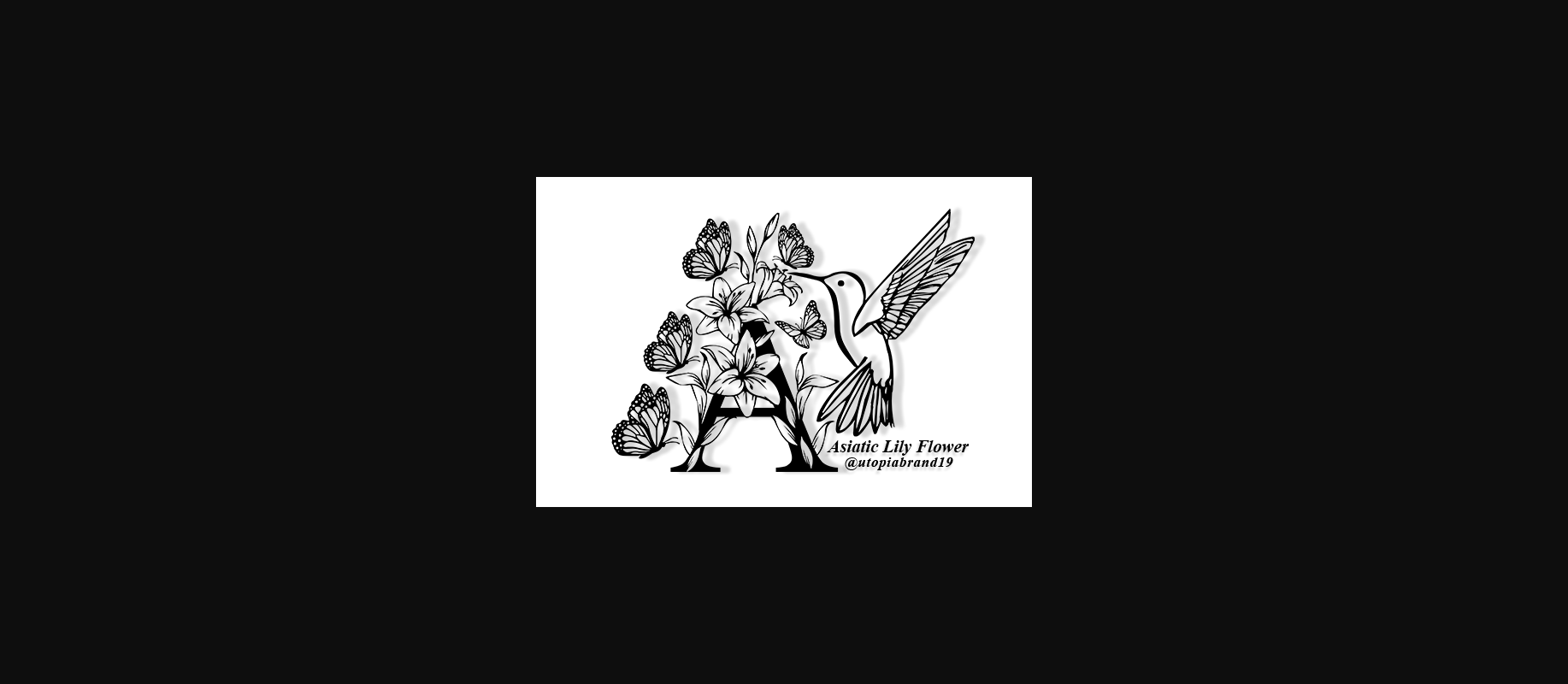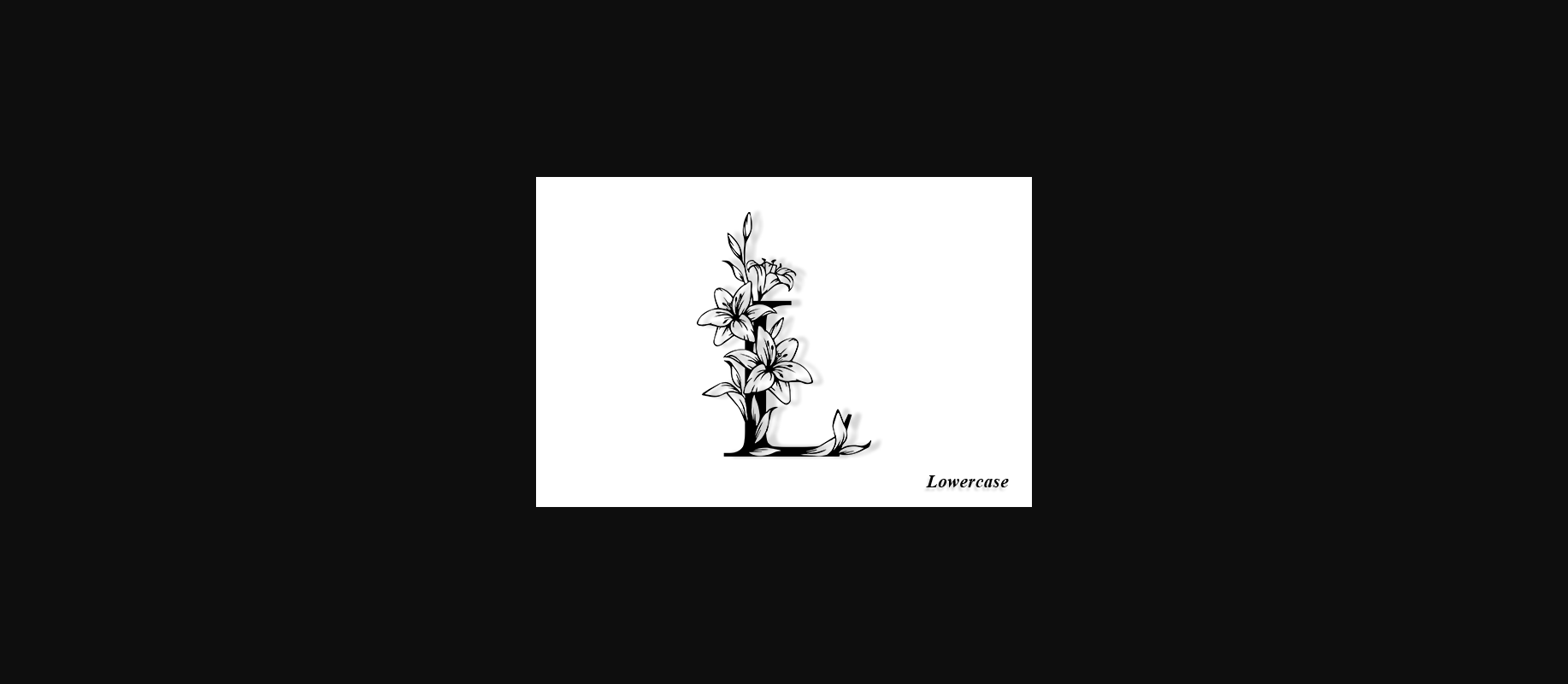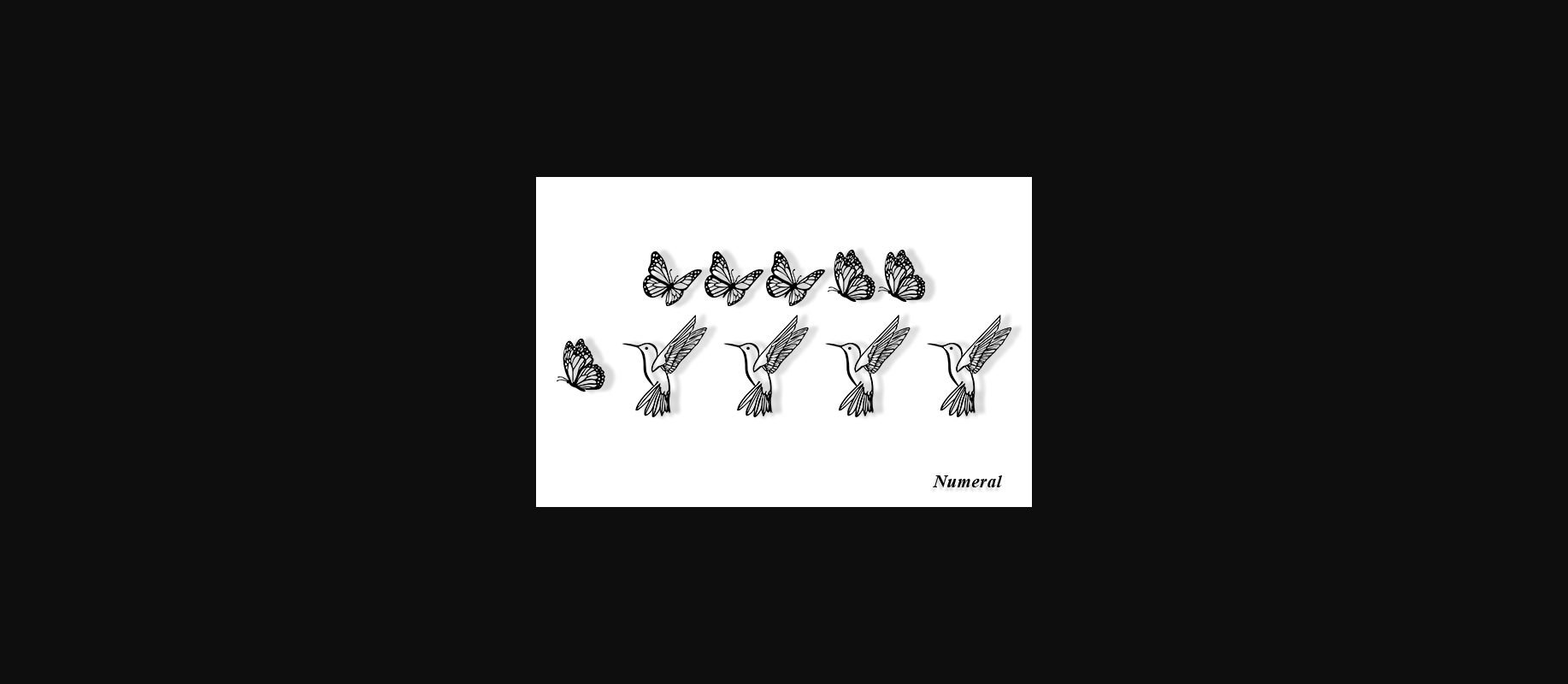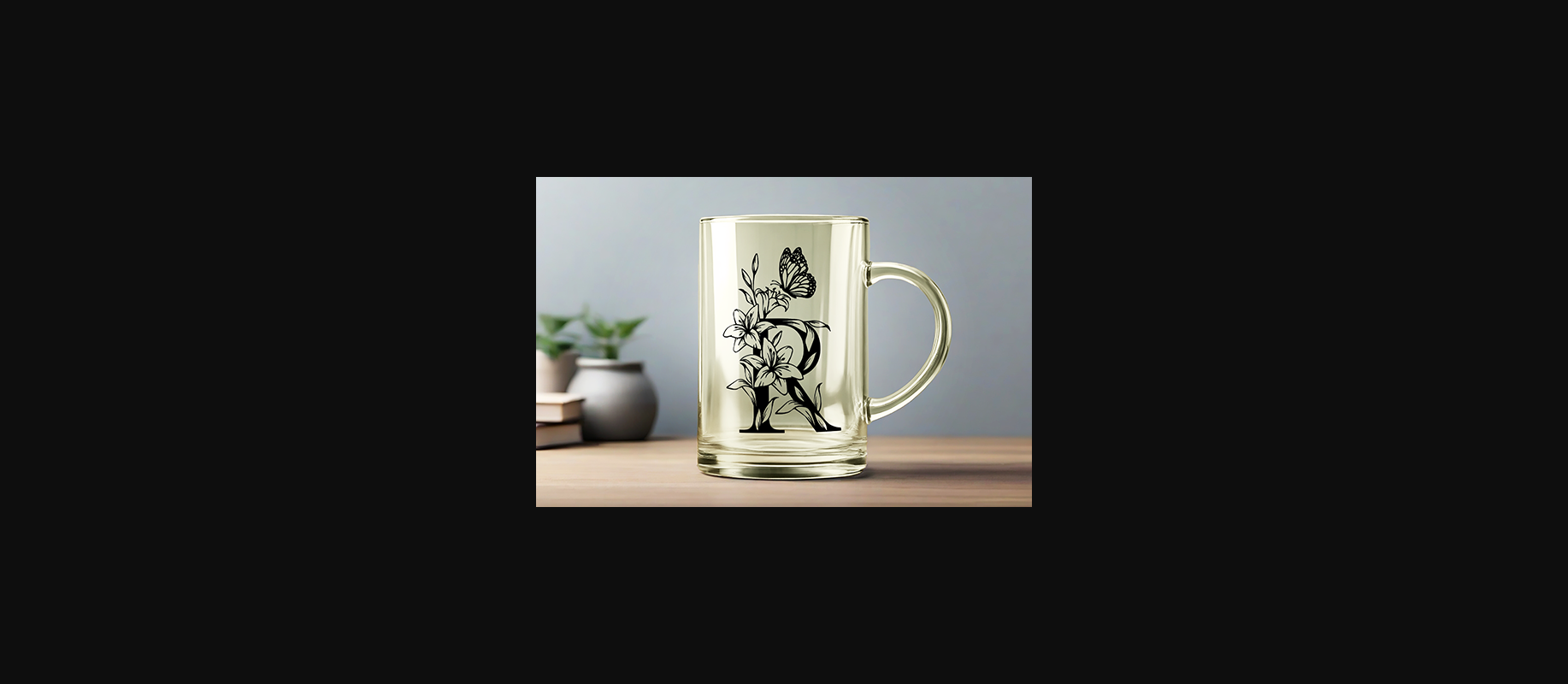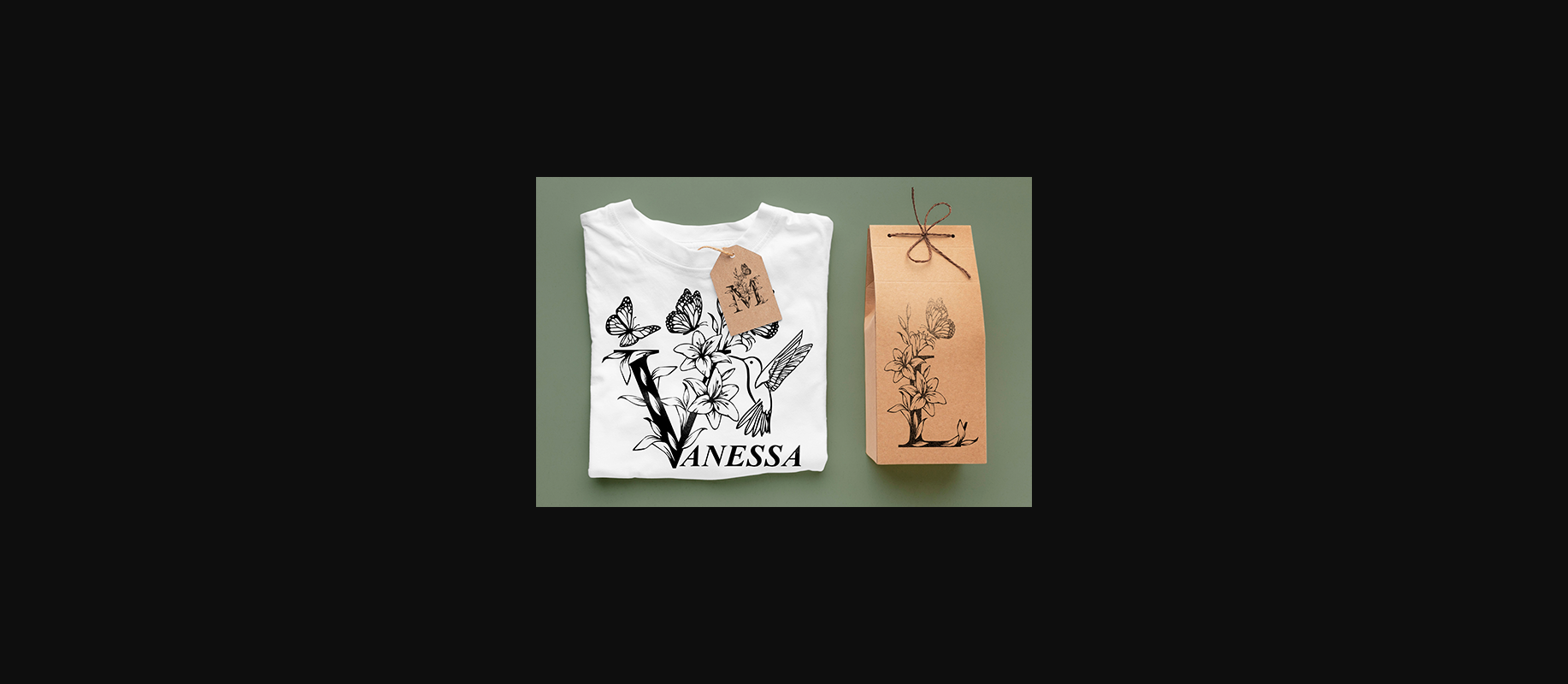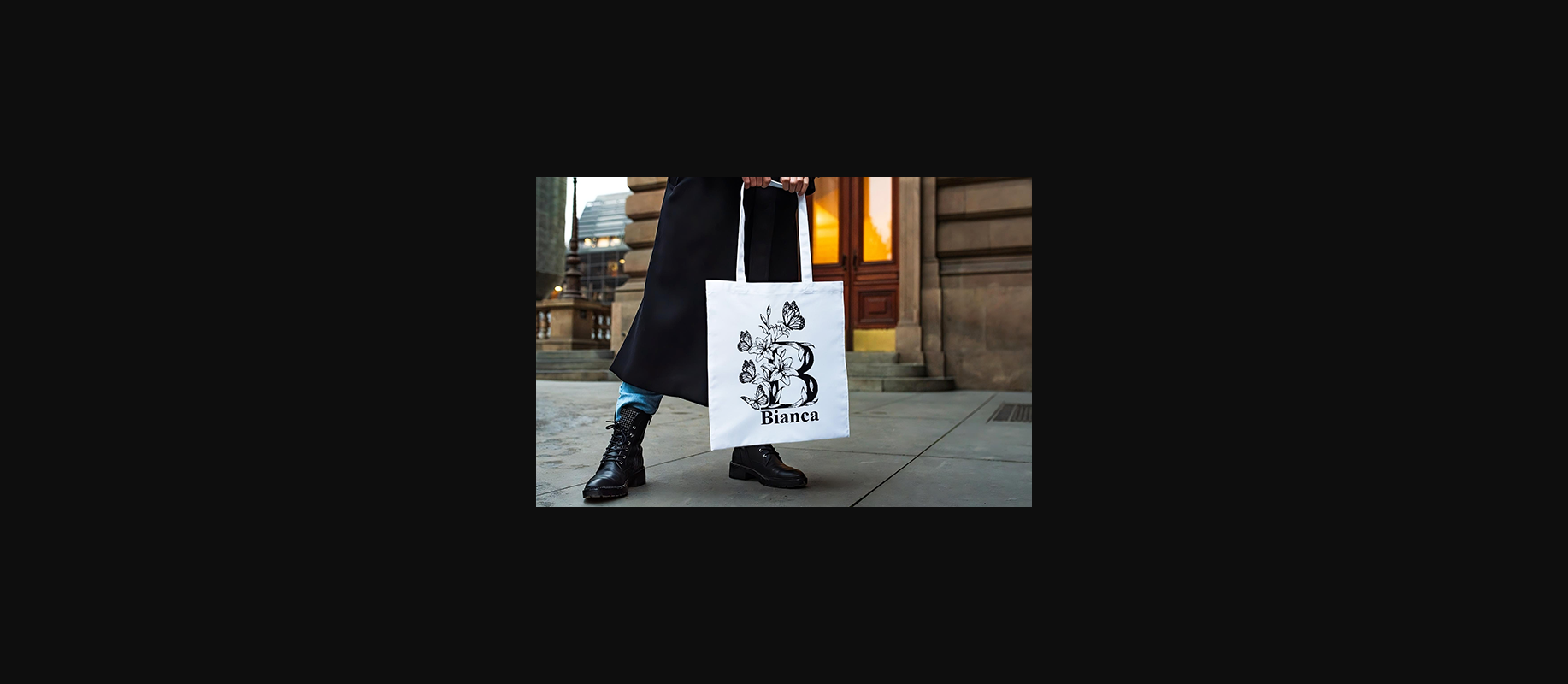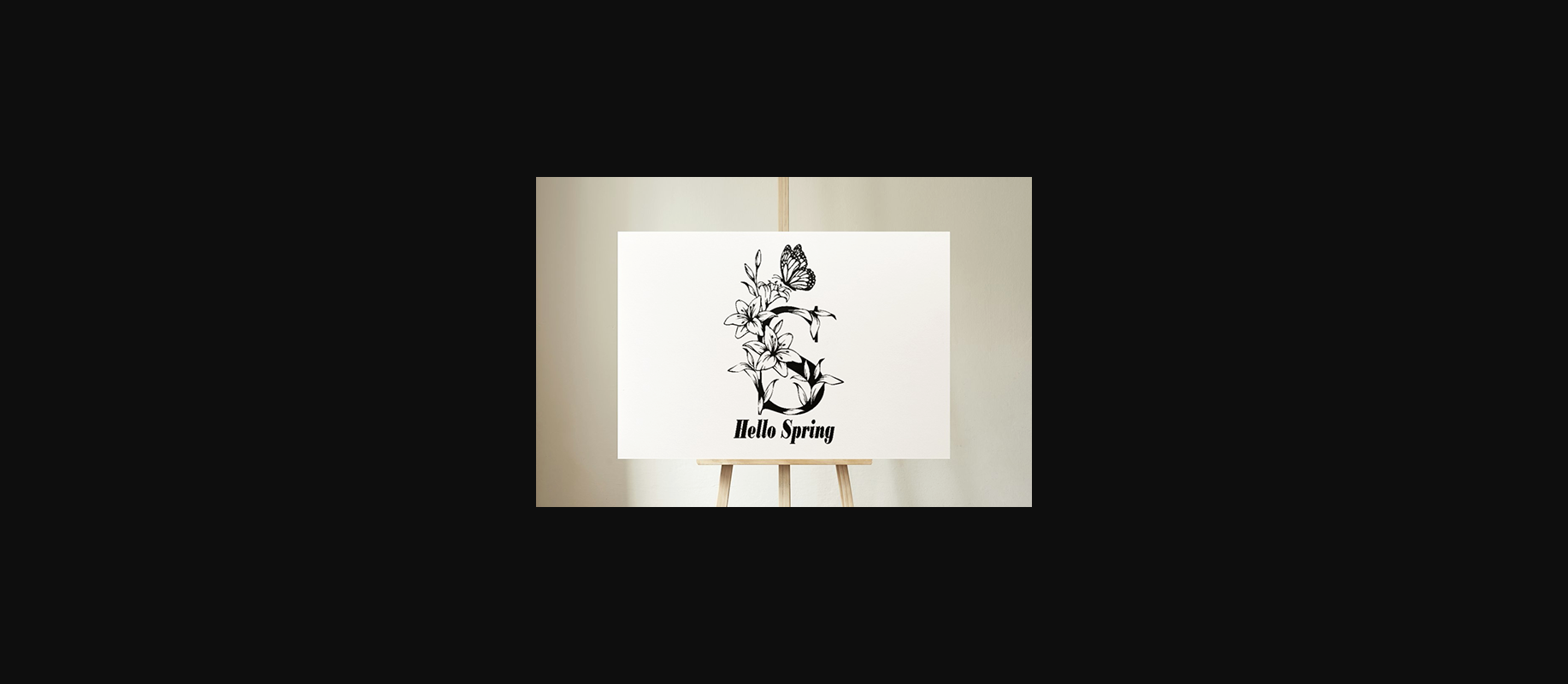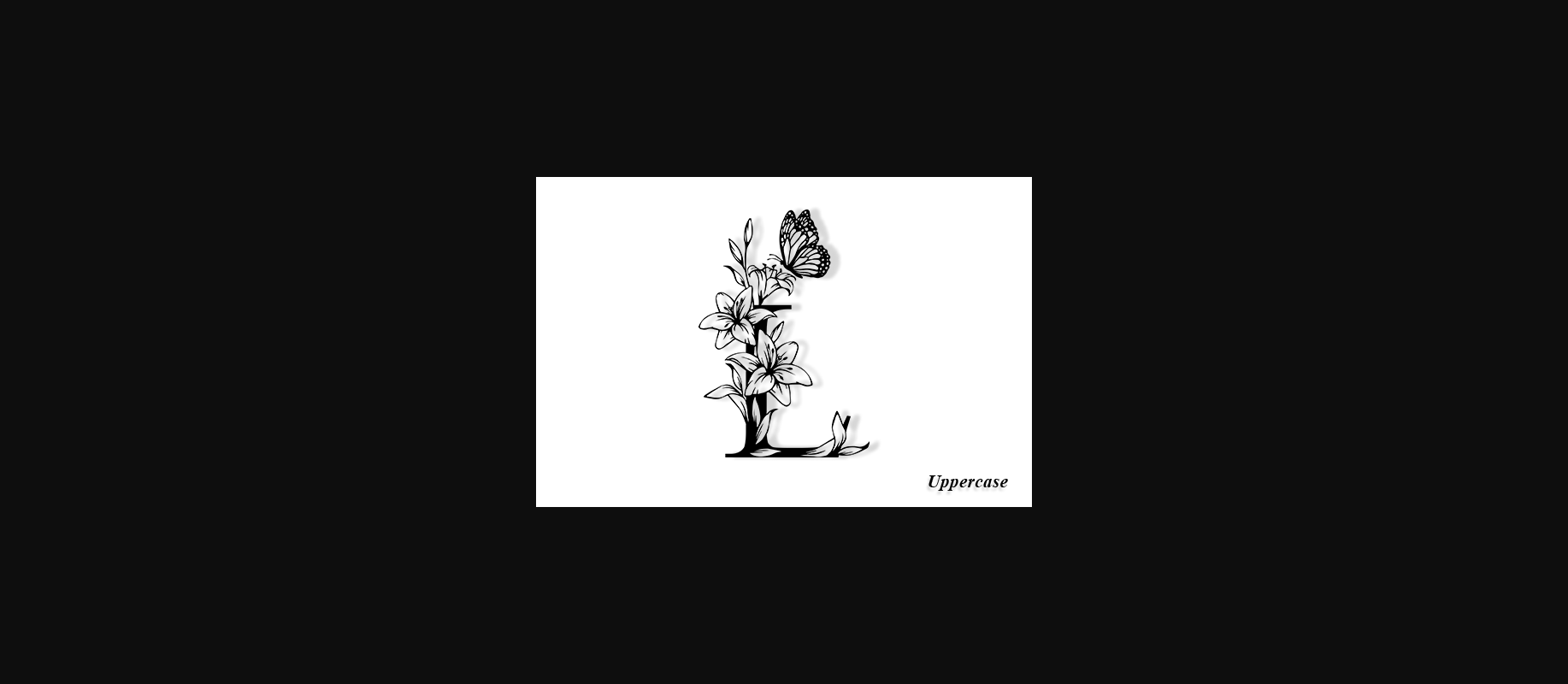
Asiatic Lily Flower Monogram Font
About Asiatic Lily Flower Monogram Font
Asiatic Lily Flower Monogram is an elegant decorative font, featuring lovely ornaments. Fall in love with its authentic feel and use it to create gorgeous wedding invitations, beautiful stationary art, eye-catching social media posts, and cute greeting cards.